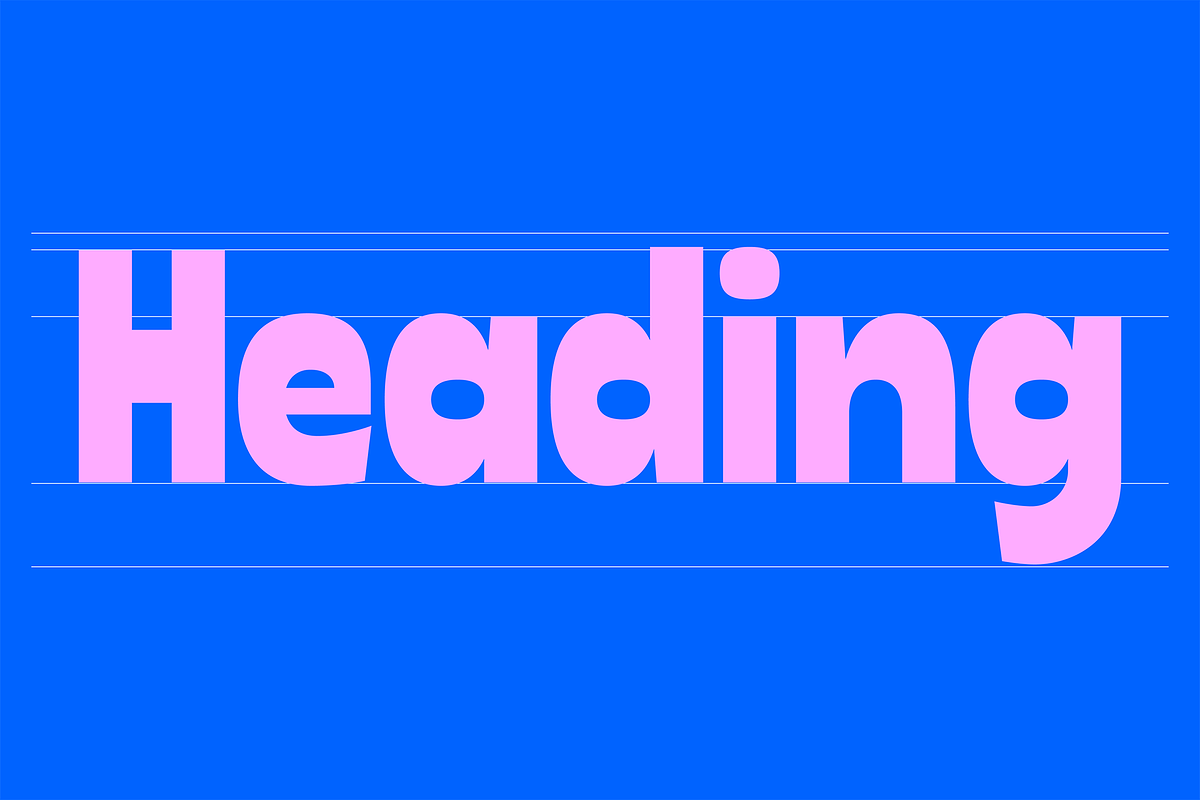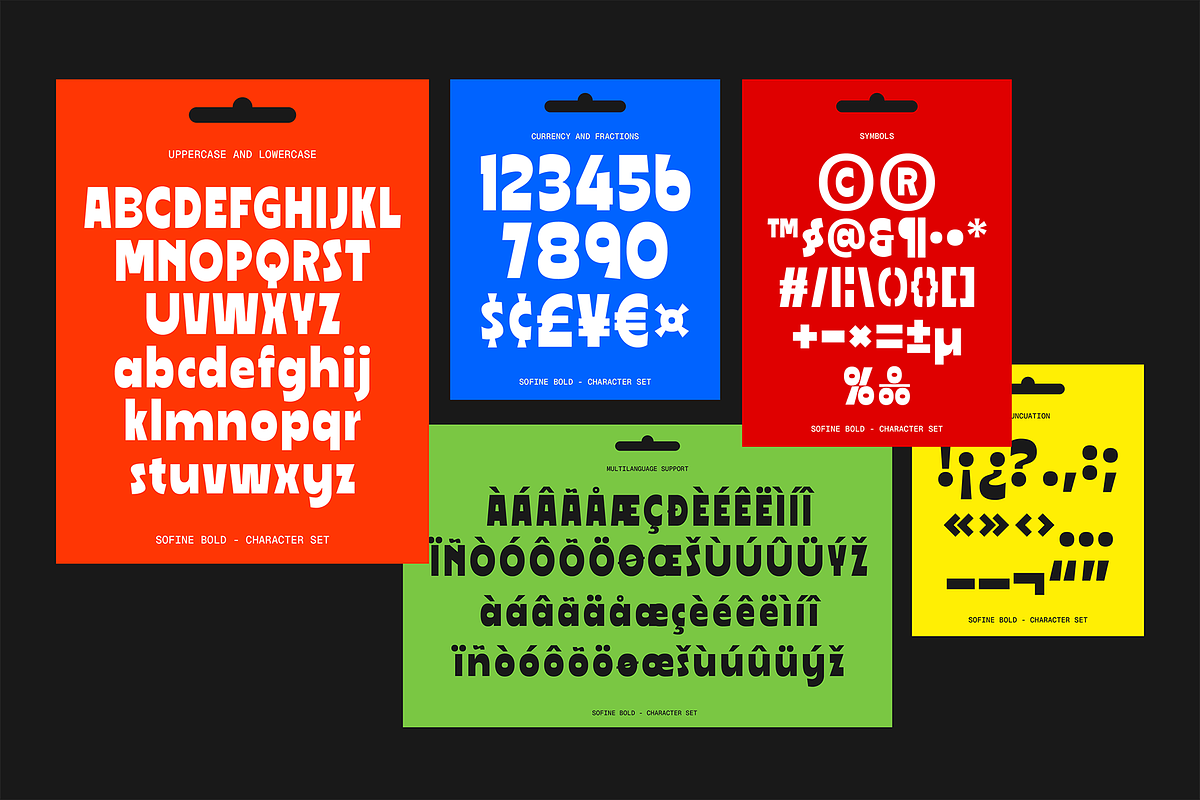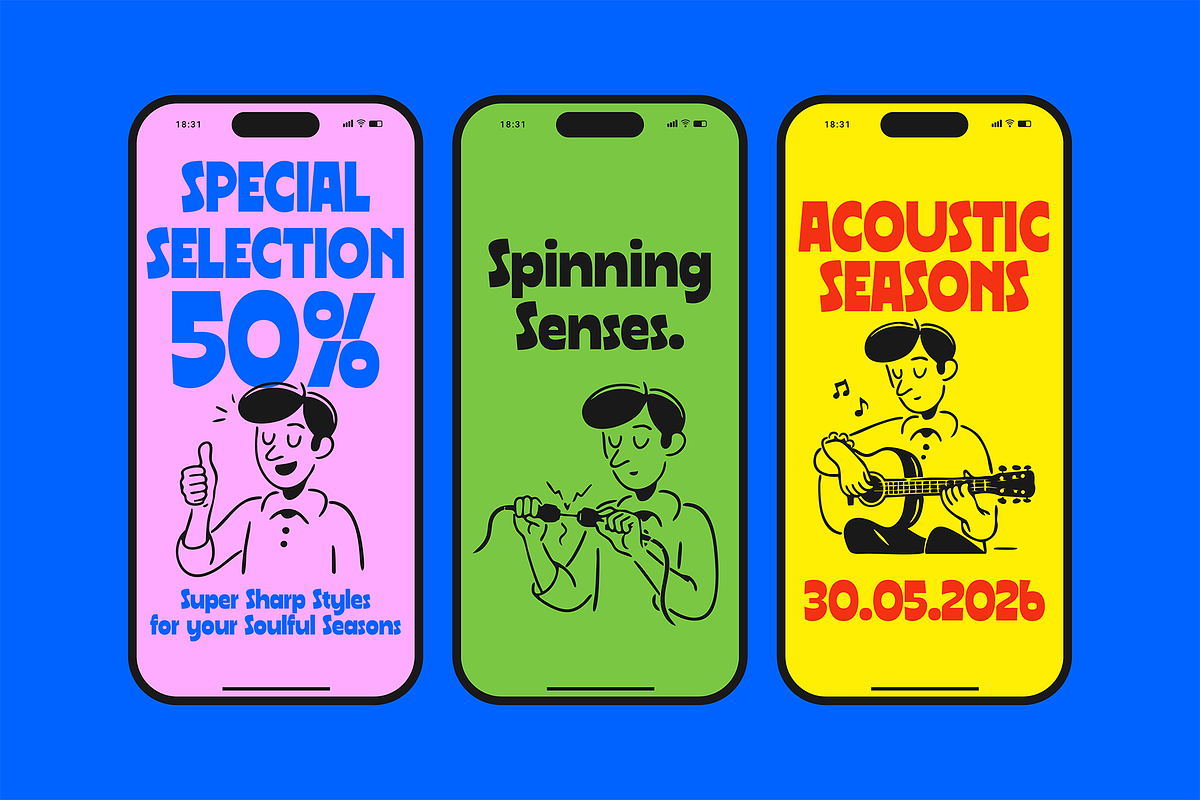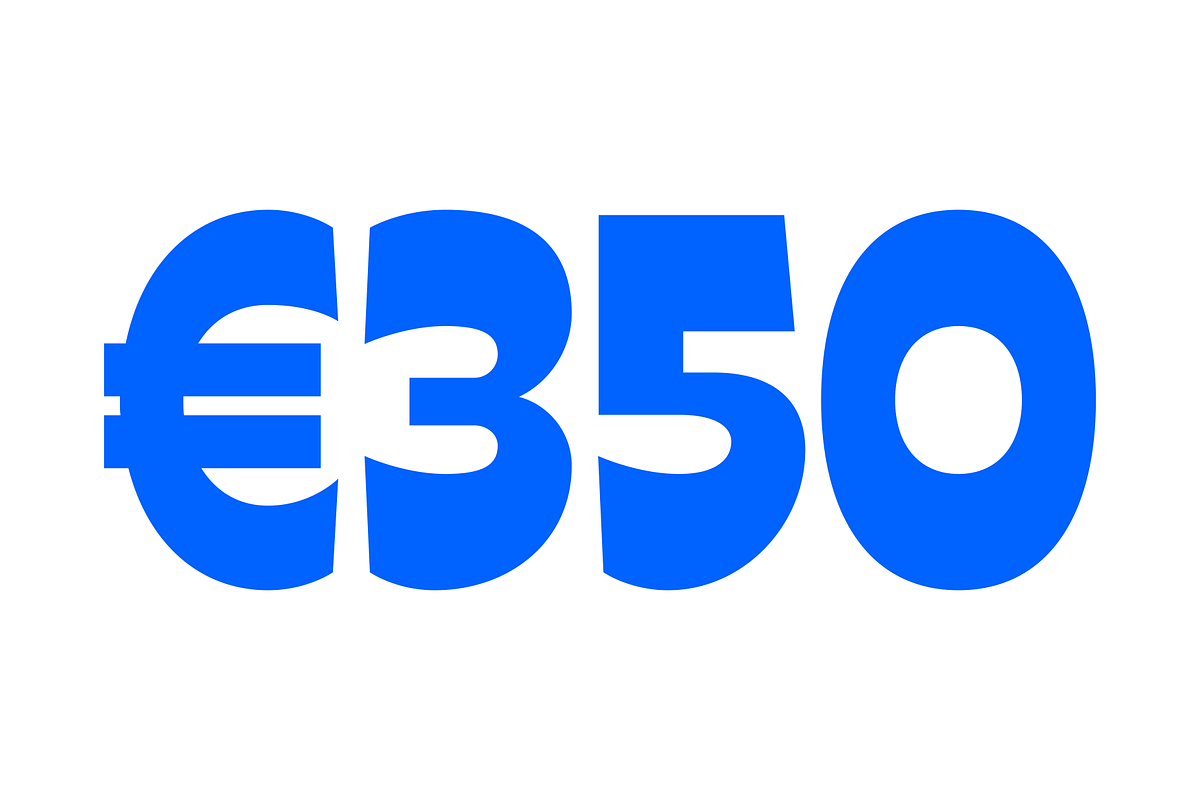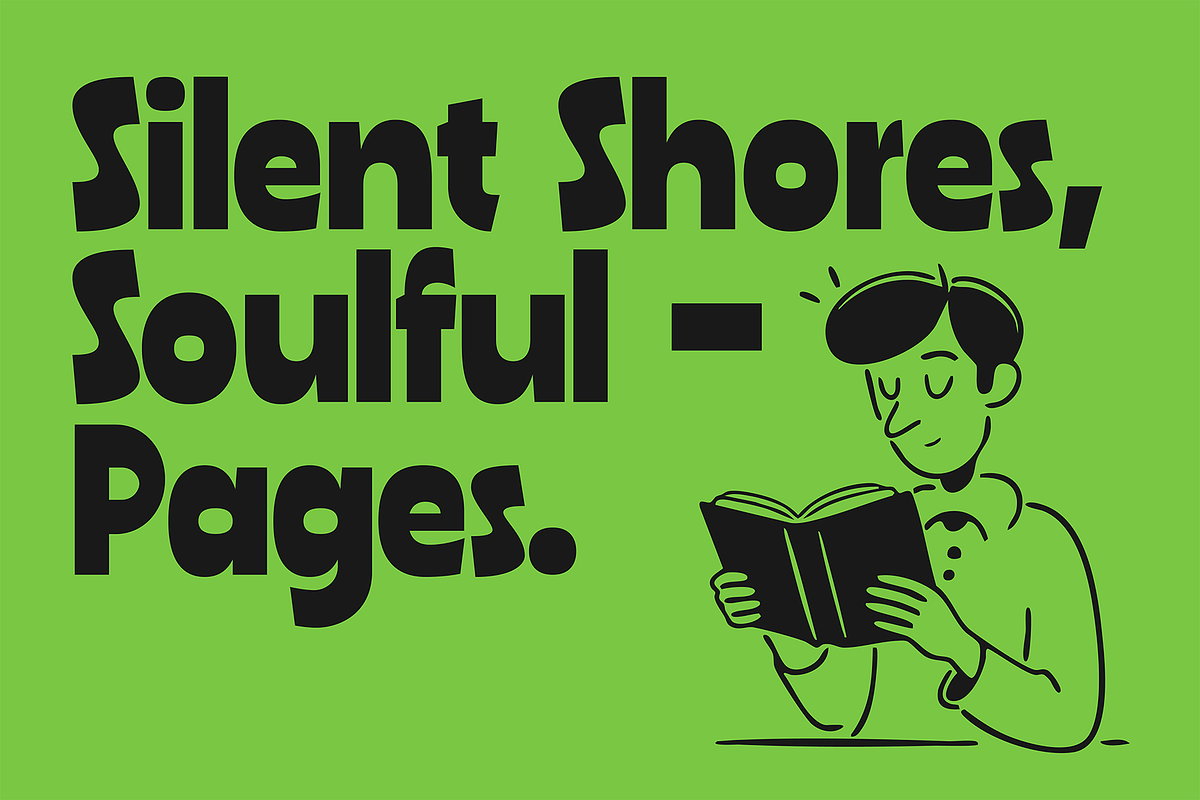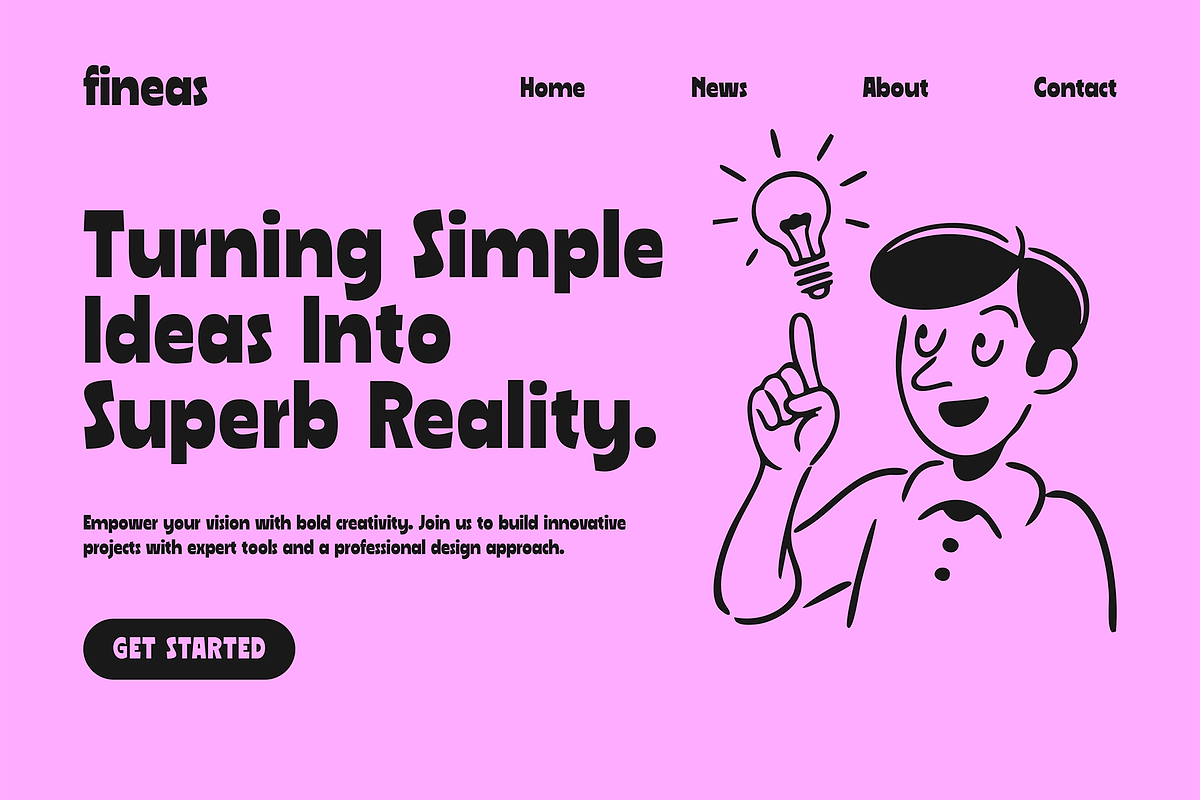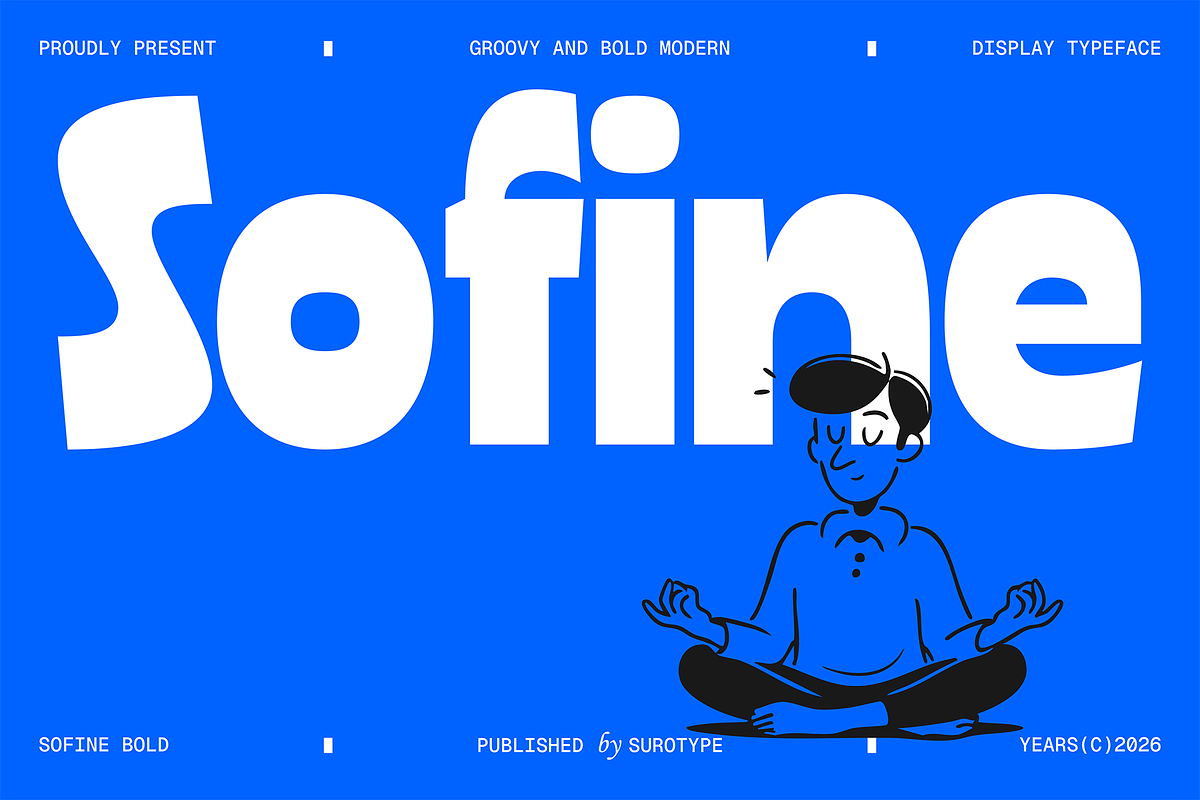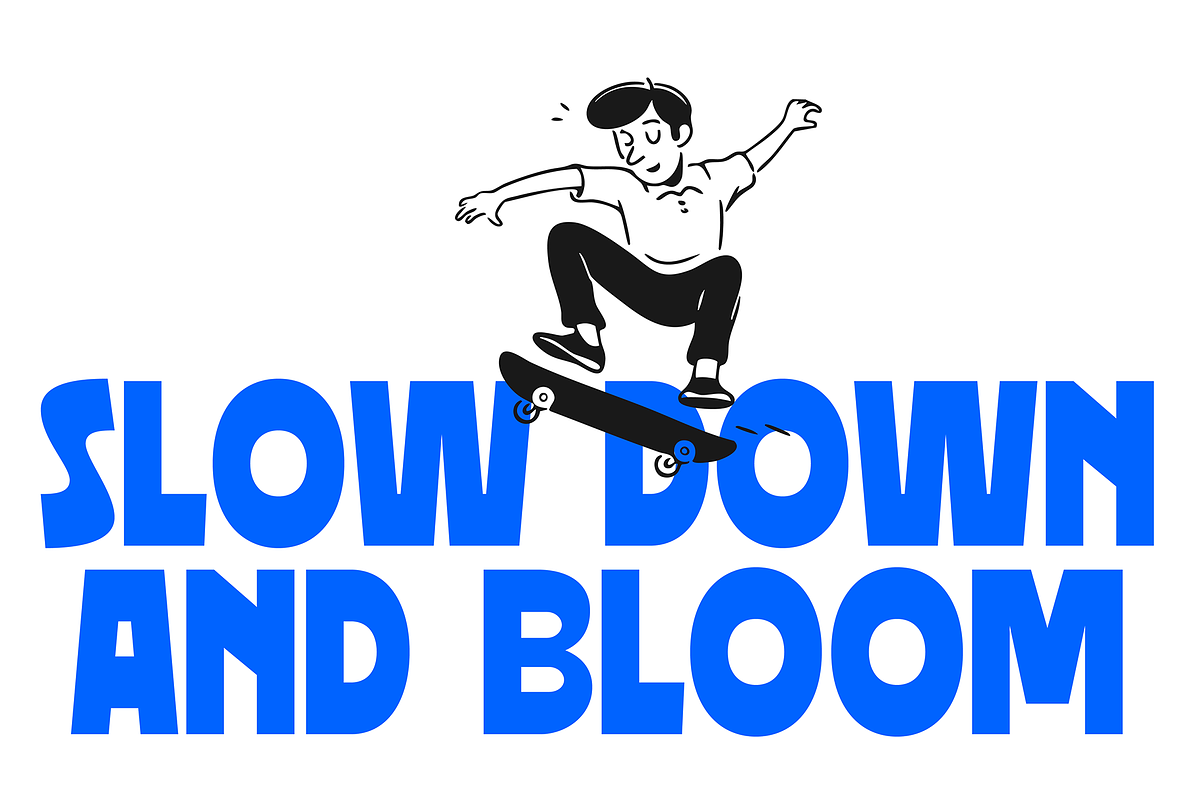
Sofine Bold
Sofine – A Groovy & Bold Modern Display Typeface
Sofine is a high-contrast display font that blends the rebellious spirit of the 70s psychedelic era with a clean, contemporary aesthetic. Designed with fluid curves and dramatic weight, Sofine is built to make a statement.
Its organic flow and "liquid-like" transitions give it a rhythmic quality, making it perfect for designers who want to break away from rigid, traditional typography. Whether you’re aiming for a retro-revival look or a cutting-edge modern brand identity, Sofine delivers a bold, confident personality.
Features & Character:
- Groovy & Playful
- Versatile Retro Aesthetic
- Punctuation & Multi-language Support